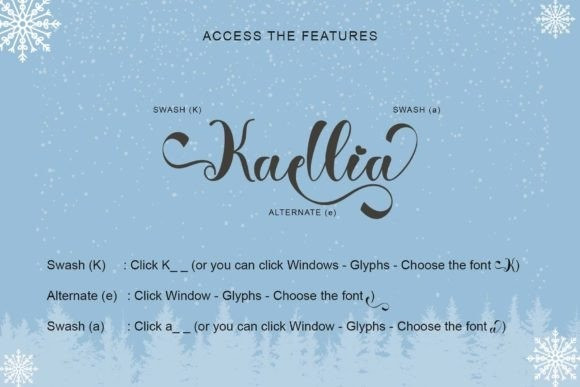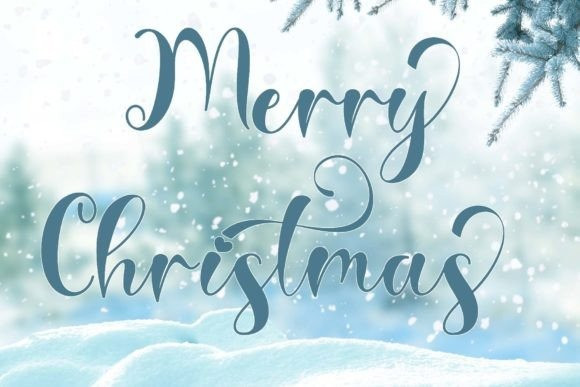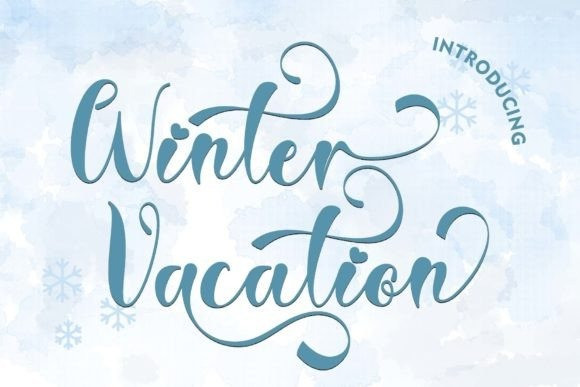
Winter Vacation Font
Winter Vacation Script Font is a beautiful script font with a whimsical feel. It is suitable for winter, Christmas, Valentine’s Day, cyber week, weddings, and other moments. This font is PUA encoded, which means you can access all of the glyphs and swashes with ease!